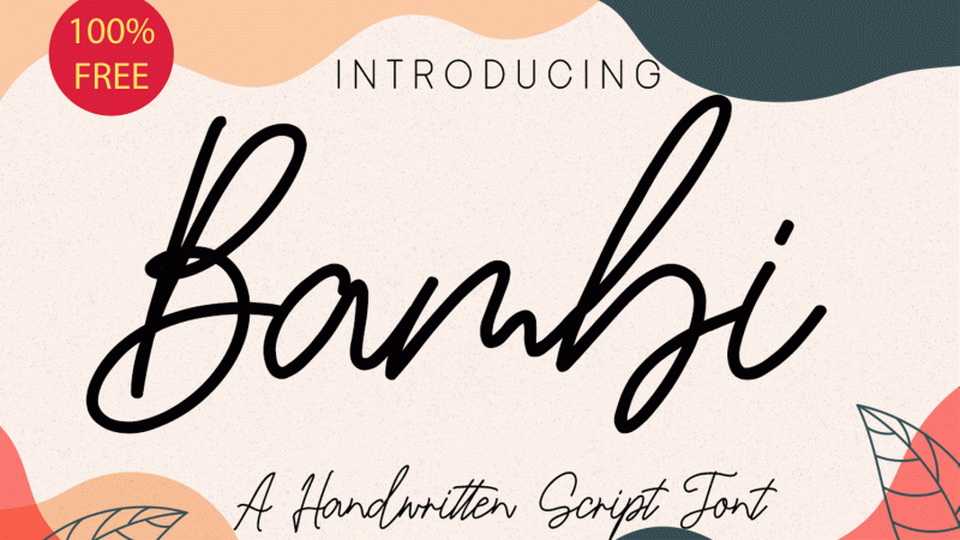
Download Bambi font, a modern handwritten typeface with casual writing. Bambi is perfect for branding, signature logo, wedding invitation, photography, and you can use and take advantage for promotional material and anything.